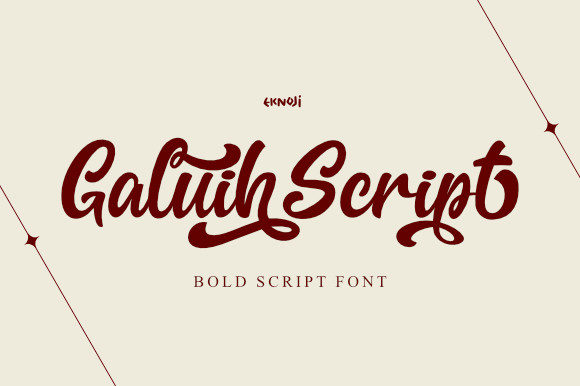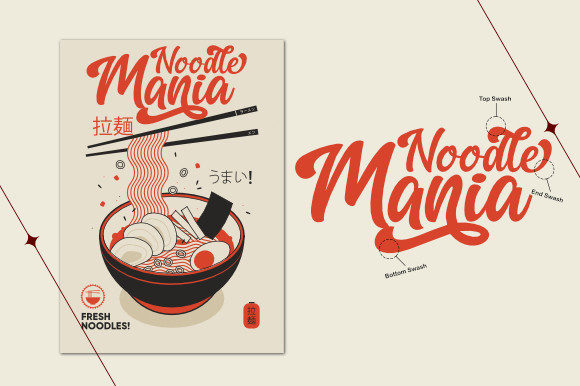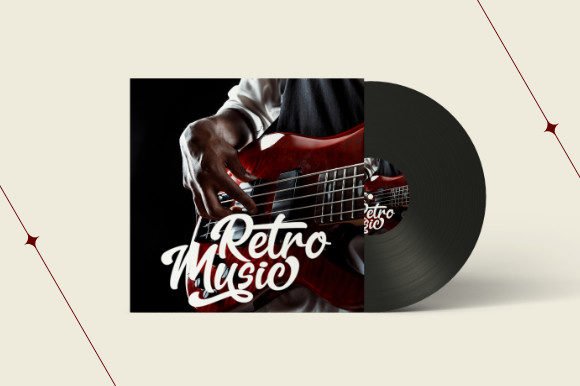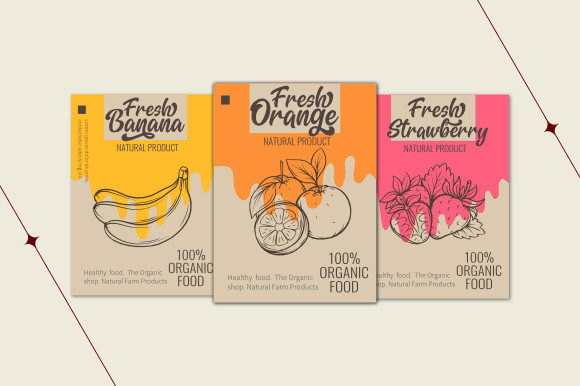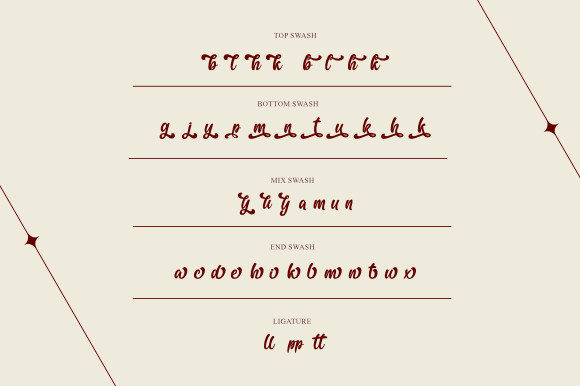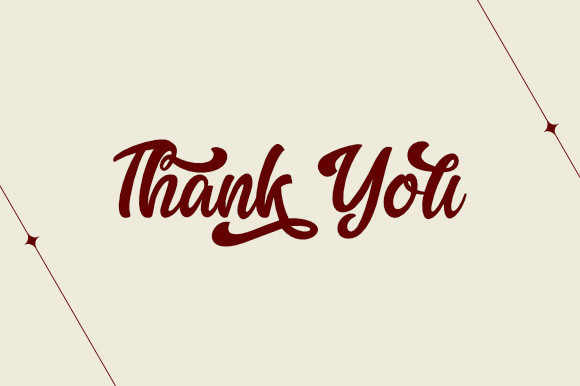
Galiuh Script Font
About Galiuh Script Font
Galiuh Script an equally sophisticated and bold handwritten font that’s great for delivering any message with confidence, authenticity and charm. This font is PUA encoded which means you can access all of the glyphs and swashes with ease!